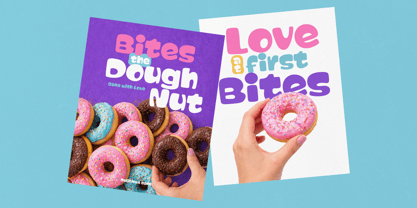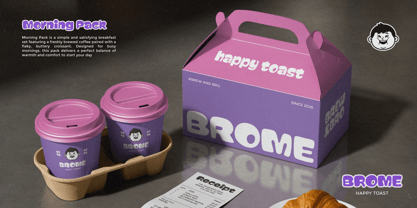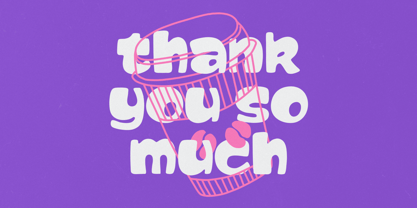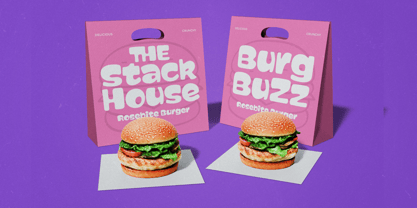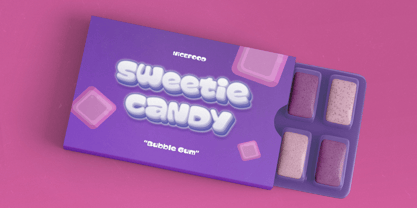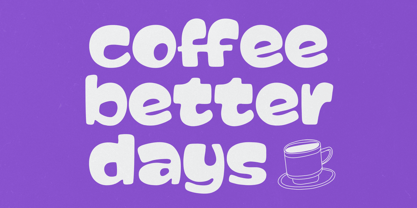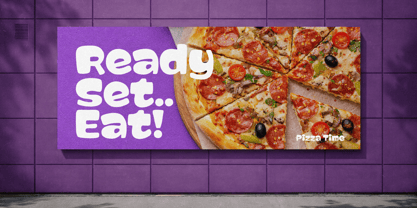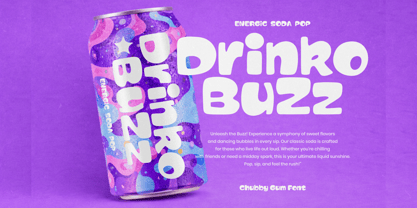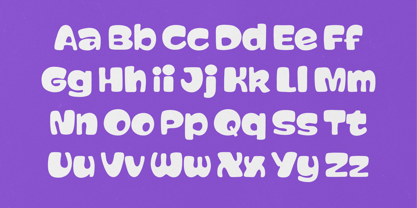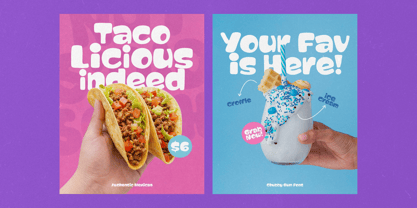
Chubby Gum
by Agny Hasya Studio
The Chubby Gum Font Family was designed by Firman Maulana and published by Agny Hasya Studio. Chubby Gum contains 1 styles.
Chubby Gum is a playful, chunky, bold display font inspired by chewy bubble gum shapes and soft, bubbly letterforms. Designed to feel fun, friendly, and expressive, it brings instant joy and personality to any design. With its rounded sans-serif structure and thick, gum-like forms, Chubby Gum works perfectly for food branding, candy packaging, kid-friendly visuals, playful logos, posters, and social media designs. The font balances fun and modern aesthetics without feeling childish, making it suitable for both youthful and lifestyle-oriented brands. If you’re looking for a display font that feels chunky, bubbly, and irresistibly fun, Chubby Gum is the perfect choice to make your designs pop. Thanks for stopping by. Questions, ideas, or feedback are always welcome. Feel free to reach out anytime. Warm regards, agnyhasyastudio
Chubby Gum